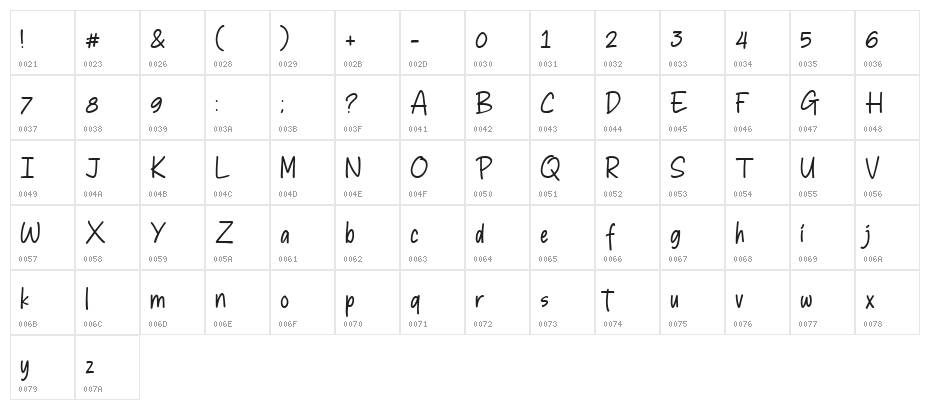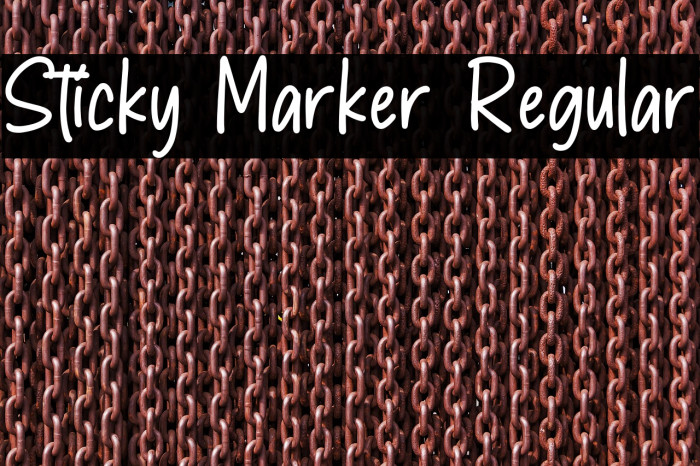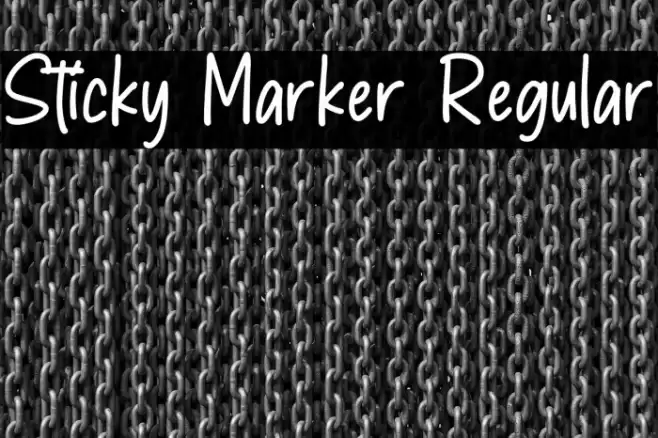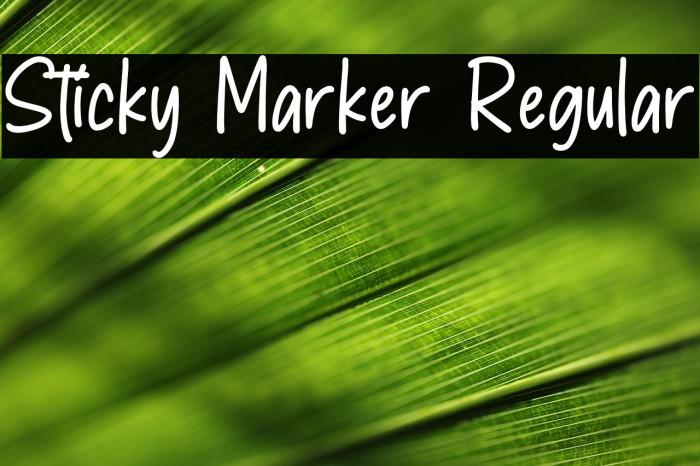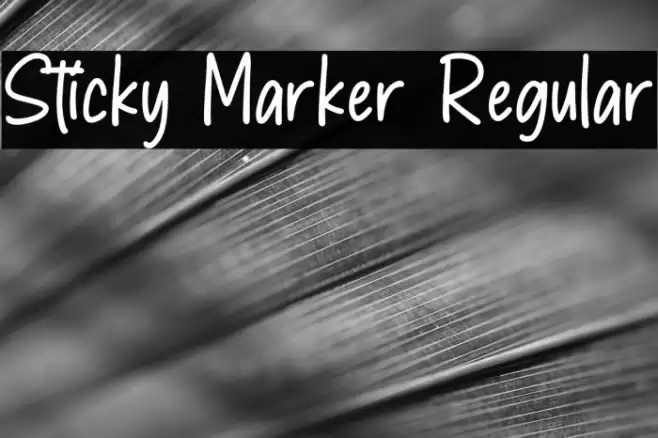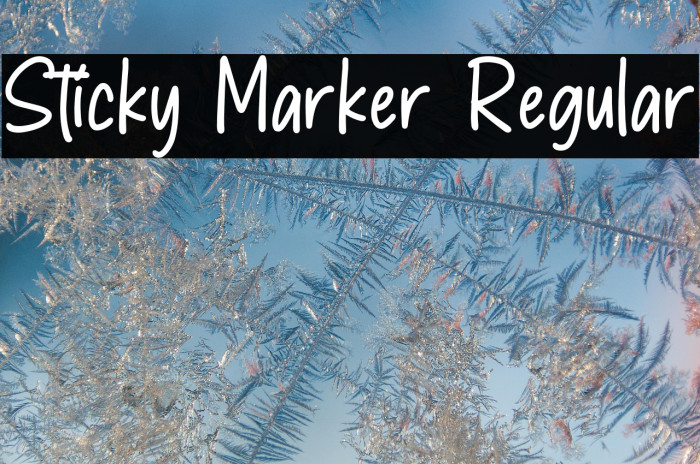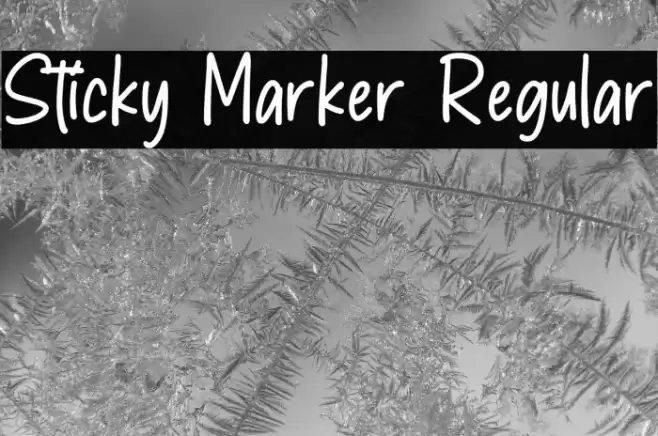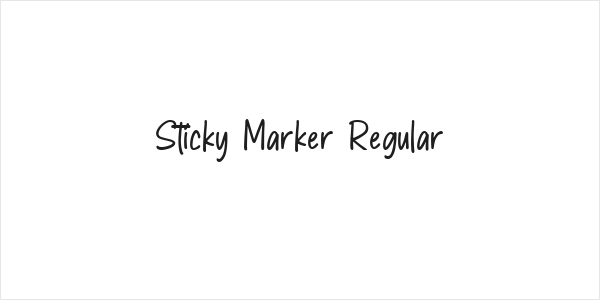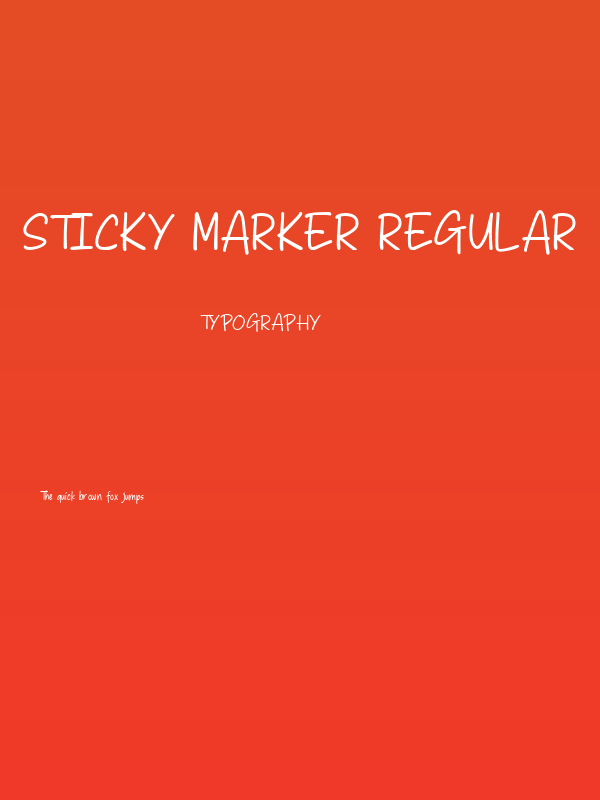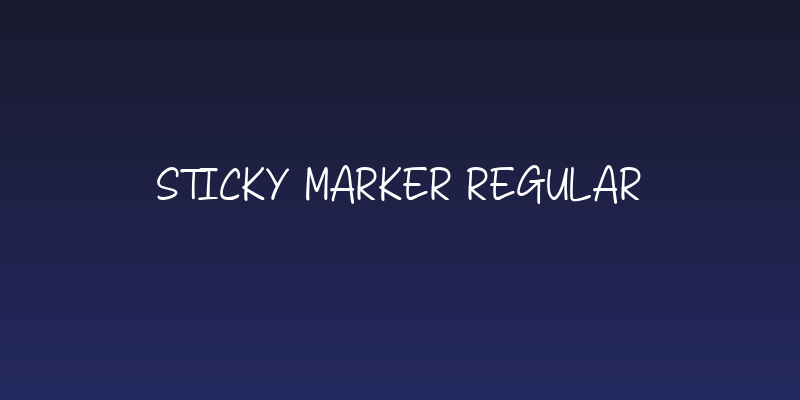
Sticky Marker Regular Font
Sticky Marker Regular Description
This font features a playful and casual handwritten style, reminiscent of writing with a marker. The characters are slightly uneven, adding to its informal and approachable feel. The strokes are consistent in width, giving it a uniform appearance despite its handwritten nature. The uppercase letters are bold and prominent, while the lowercase letters maintain a friendly and inviting look. Numbers and special characters are clear and easy to read, making this font versatile for various uses.
| Proposed Projects | Ideal for children's books, casual invitations, personal notes, and creative projects that require a friendly and informal touch. |